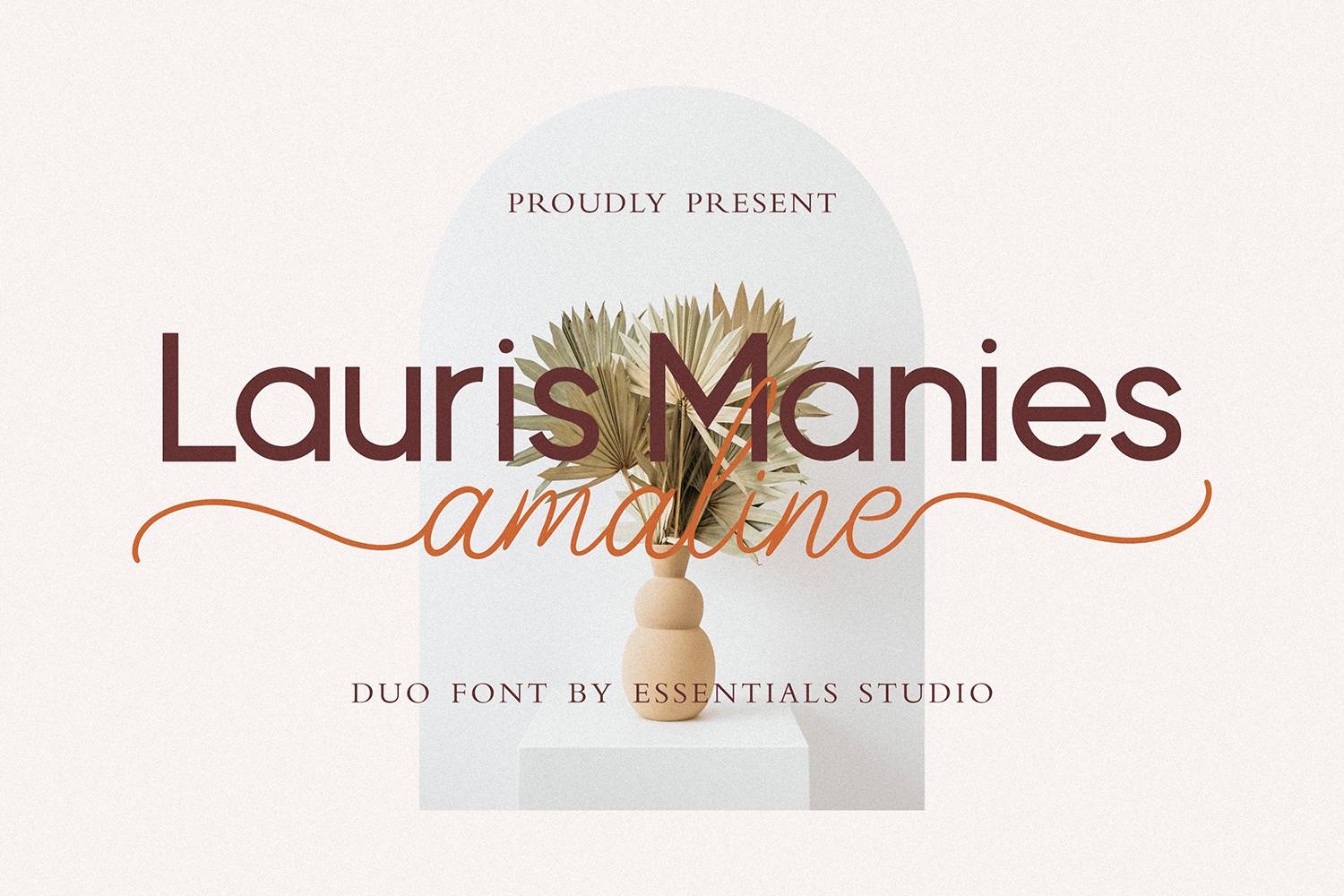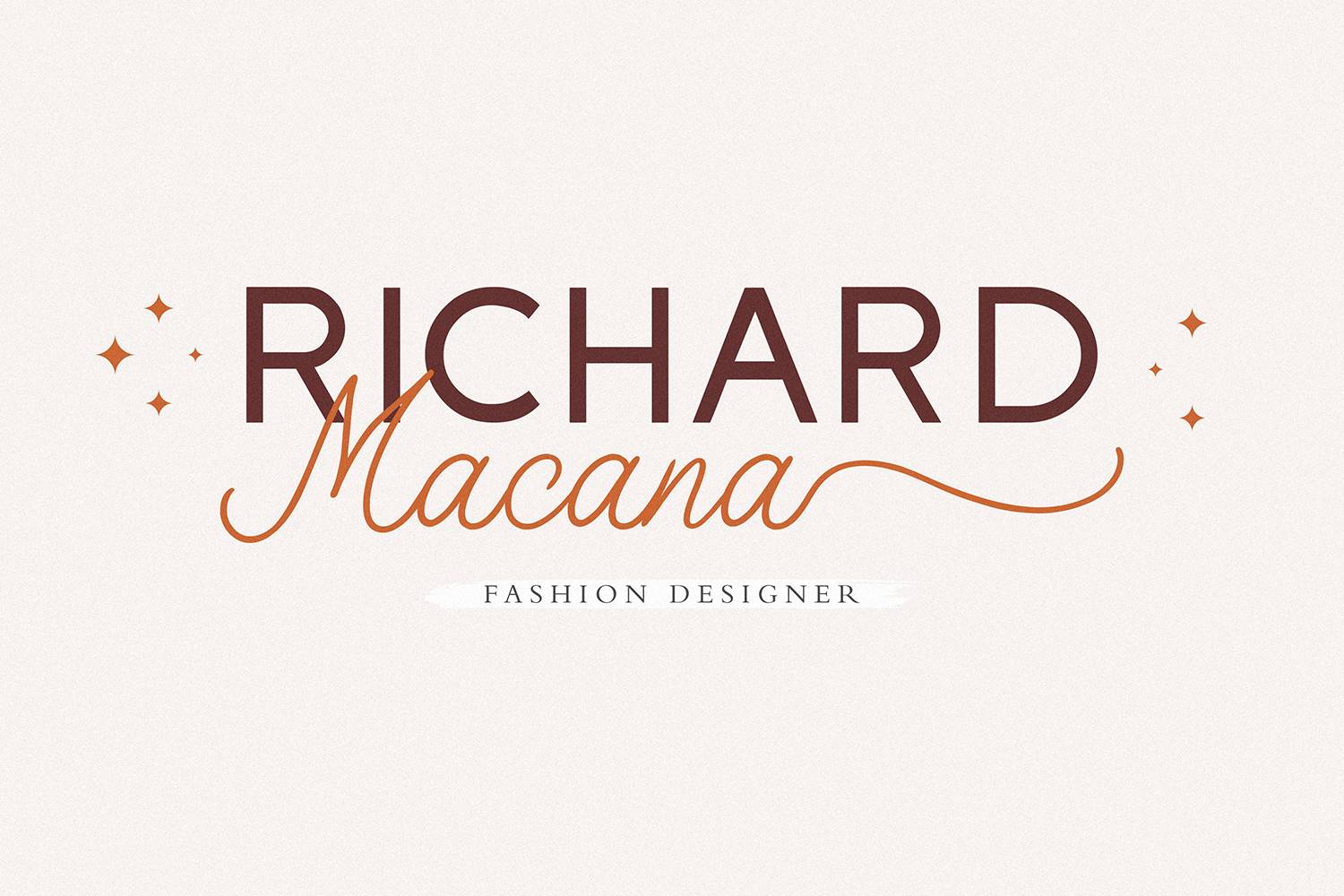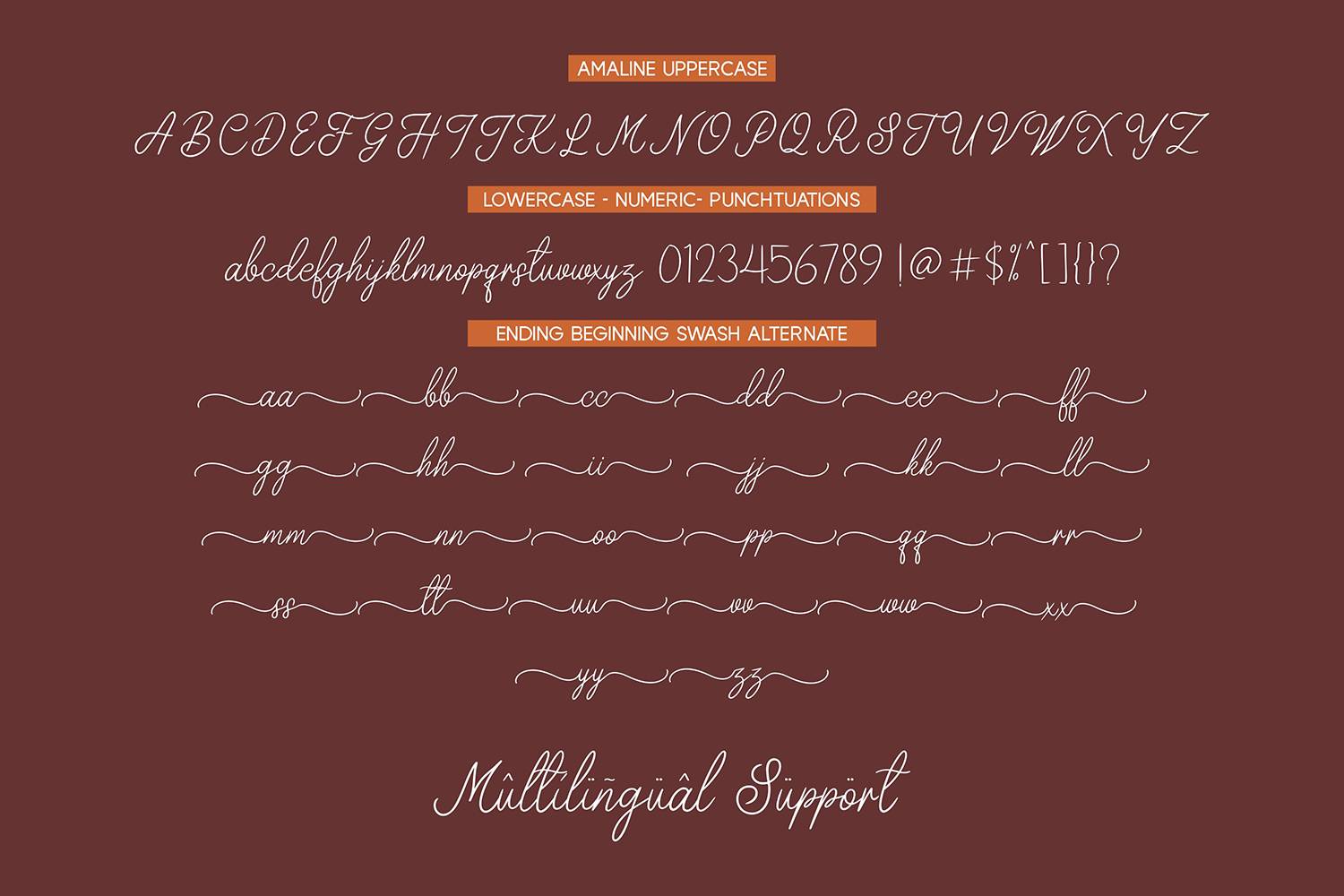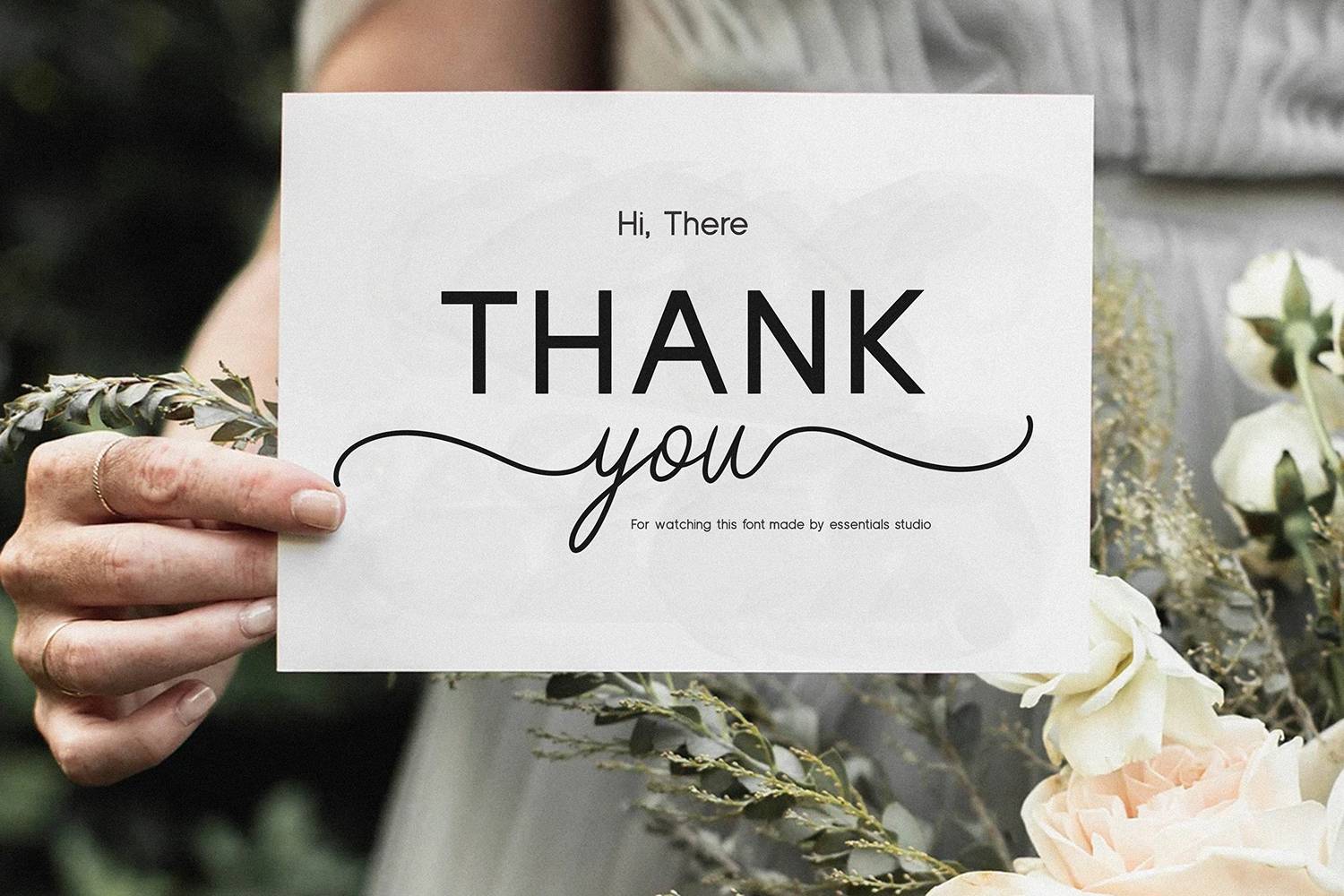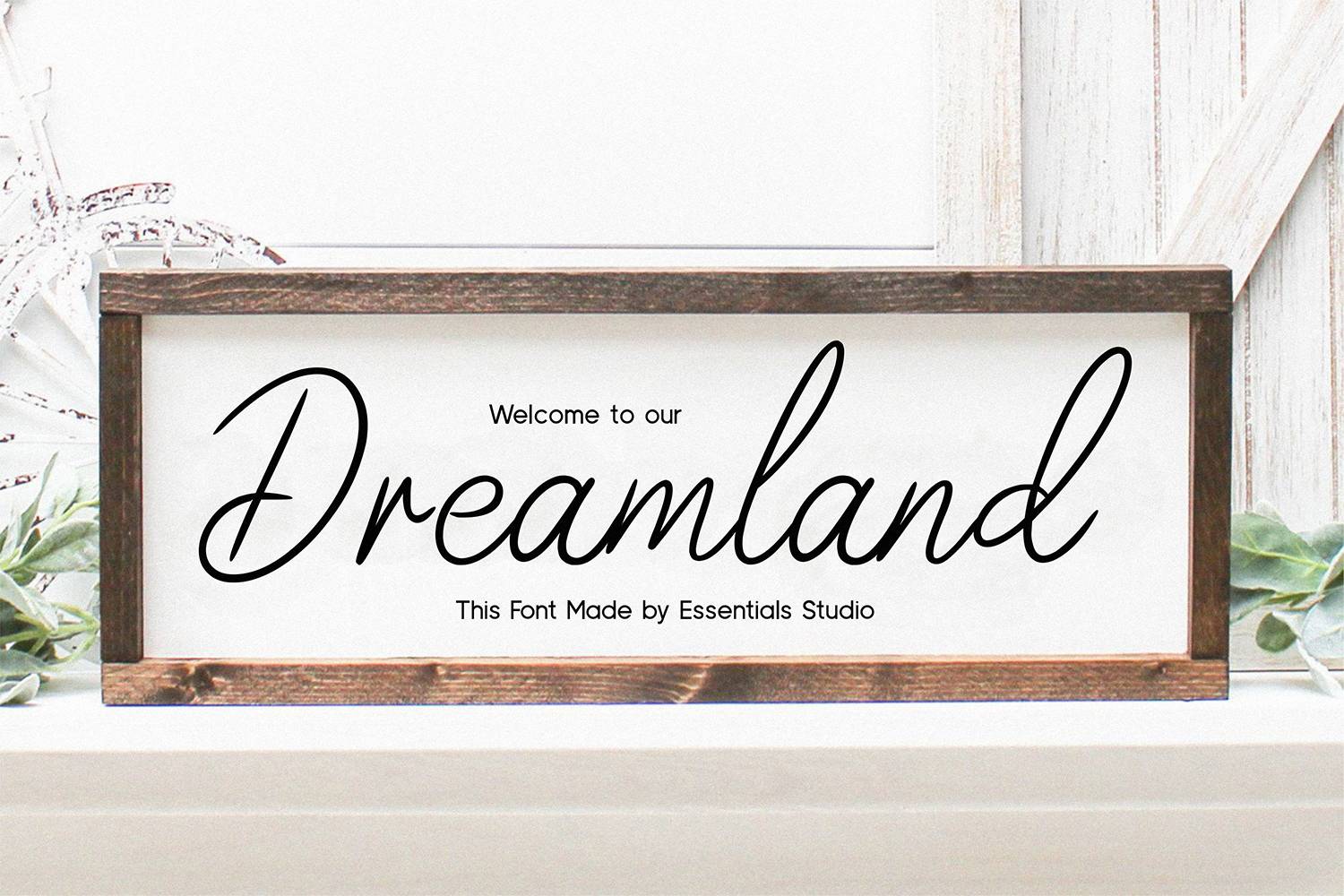
Amaline is a delicate, elegant script font featuring slender, flowing letterforms that mimic natural handwriting with smooth, rounded strokes and graceful curves. Its light weight and airy spacing make it perfect for invitations, branding, and any design that seeks a refined yet approachable feel. This font works best in projects requiring a personal touch or sophisticated charm, such as luxury packaging, wedding stationery, or stylish editorial headlines.
Amaline Font
| Designer | Sulthan Mada Maulana Tsani |